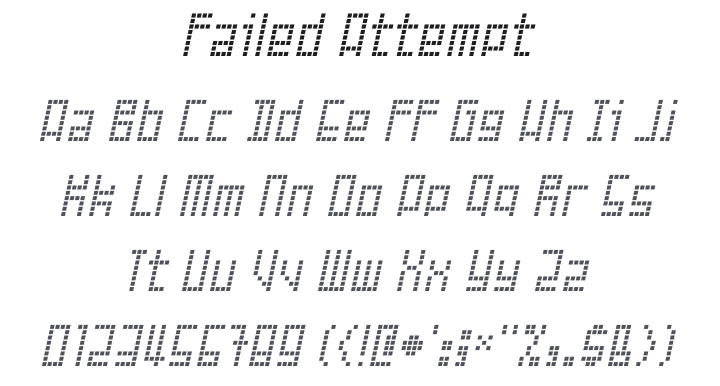
Failed Attempt Font
About Failed Attempt
Failed Attempt is a quirky, slanted LCD/LED pixel display typeface with an unconventional spaced-out personality — its irregular, off-kilter letterforms feel like a malfunctioning digital readout delivering urgent transmissions. The tilt gives it nervous energy that regular pixel fonts lack. Perfect for cyberpunk interfaces, glitch-art aesthetics, sci-fi game UIs, retro-tech posters, and any design that thrives on digital eeriness.